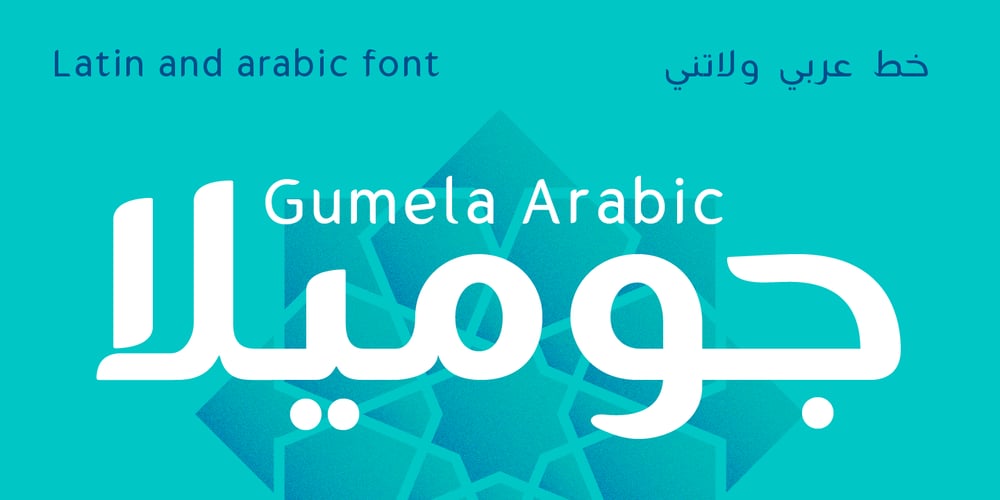
Gumela Arabic Font Family was designed by Nur Syamsi, Panca Ahmadi Hasan and published by NamelaType. Gumela Arabic contains 3 styles and family package options. Arabic font version of Gumela, still with Gumela latin style, based on rounded sans serif whose edges end with unique shapes, to line up in harmony between Latin and Arabic.